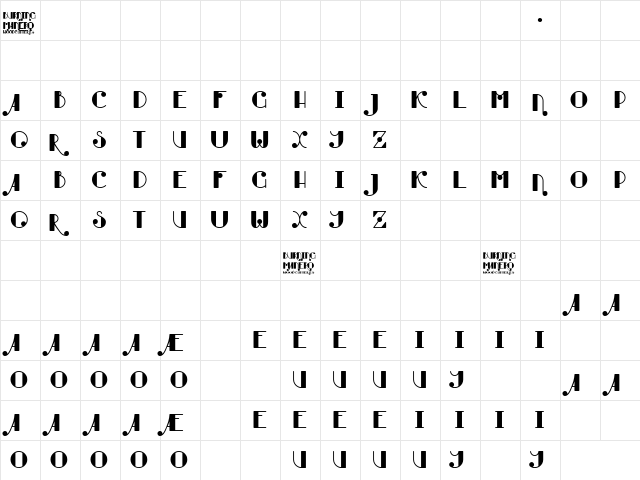
Burning Manero Regular
| Designer | Jordi Manero Pascual |
Design Context for Burning Manero Typeface
Burning Manero is a composed and adaptable typeface that performs quietly and consistently across a wide range of design contexts.